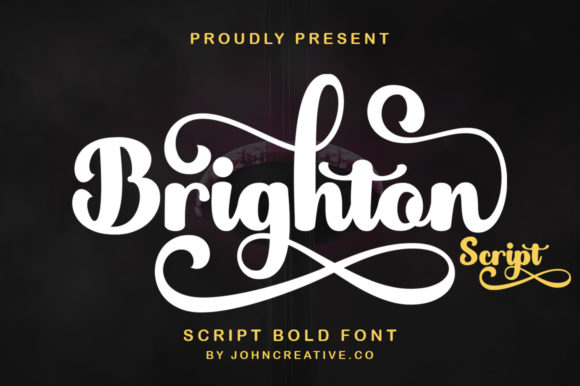
Brighton Script: More Than Just a Pretty Handwritten Font
In a digital world saturated with sterile sans serifs and predictable serifs, a touch of authenticity can be your brand’s most powerful asset. This is where a premium font like Brighton Script enters the conversation. It’s not merely a collection of letters; it’s a voice. This sophisticated handwritten typeface is designed to deliver messages with a blend of confidence, charm, and genuine character that feels both personal and polished.
At its core, Brighton Script is a modern script font that balances fluid, organic strokes with a deliberate structure. The letterforms exhibit a natural flow, with elegant swashes and subtle variations in weight that mimic the pressure and movement of a skilled hand. It avoids the overly casual or messy look of some handwritten fonts, instead opting for a refined, legible style. The overall appeal is one of approachable sophistication—think of a beautifully penned note from a friend who also happens to be a designer. This balance makes it an incredibly versatile creative font for a multitude of projects.
Where Brighton Script Truly Shines: Real-World Applications
The true test of any typeface is its performance in the wild. Brighton Script isn’t just for looking at; it’s for using. Its personality makes it exceptionally effective in specific contexts where connection and clarity are paramount.
Elevating Brand Identity and Marketing
For entrepreneurs and small business owners, a brand identity is a story. Brighton Script can serve as the narrator. In logo design, it can create an instant sense of craftsmanship and care, ideal for boutique shops, artisan food brands, wedding planners, or personal blogs. It humanizes a brand, making it feel more relatable. In marketing materials, from social media graphics to email headers, it draws the eye and conveys warmth, helping campaigns feel less like advertisements and more like conversations. When used for quotes, testimonials, or call-to-action phrases, it adds an emotional punch that standard fonts often lack.
Transforming Print and Editorial Design
In the realm of editorial design and packaging design, this handwritten font excels at creating visual hierarchy and focal points. Imagine it as the headline font for a lifestyle magazine’s feature story or the hero typeface on a gourmet coffee bag. It immediately sets a tone of quality and personality. For book covers, especially in genres like romance, memoir, or young adult fiction, it can suggest intimacy and storytelling. The font works beautifully on greeting cards, wedding invitations, and event stationery, where its charm is in full effect. Its strength lies in titles, headers, and short bursts of impactful text rather than lengthy body copy.
The Practical Guide to Using Brighton Script Effectively
Adopting a new display font like Brighton Script is an exciting step, but a strategic approach ensures it strengthens your work rather than complicates it. Here’s how to integrate it thoughtfully.
Evaluating Fit and Testing Pairings
First, assess your project’s needs. Does your brand or design call for a personal, artisanal, or elegant touch? If the answer is yes, Brighton Script is a strong candidate. Next, consider font pairing, a critical skill in modern typography. A script font rarely works alone for all text. The ideal partner is a clean, highly legible typeface that provides contrast. Pair Brighton Script with a simple sans serif font for a contemporary, balanced look. Alternatively, a classic serif font can create a more traditional, sophisticated pairing. Always test your pairings at different sizes to ensure the hierarchy is clear—the script for flair, the companion for readability.
Understanding Readability and Licensing
While Brighton Script is designed for clarity, its handwritten nature means it’s best suited for short text applications. Use it for headlines, logos, and subheadings, but opt for your chosen sans serif or serif font for body copy and paragraphs. This ensures your content is accessible to all readers. A significant practical advantage is that this font is PUA encoded. This means every glyph, swash, and stylistic alternate is easily accessible without needing advanced design software features, giving you full creative control. Before using it commercially, always verify the license terms to ensure it covers your intended use, whether for a client project, merchandise, or digital products.
Maximizing Impact with Included Styles
Don’t overlook the full toolkit. Many premium fonts like Brighton Script come with multiple stylistic sets or alternate characters. Experiment with these to customize the letterforms for your specific design. Maybe a different swash on the capital ‘B’ better suits your logo, or a simpler lowercase ‘g’ improves readability in a particular context. Reviewing these options allows you to tailor the font, making your work unique. This level of detail is what separates generic design from truly crafted design assets that contribute to a cohesive and professional brand identity.
In the end, choosing a typeface is about communication. Brighton Script offers a powerful way to communicate authenticity, creativity, and confidence. It’s a tool that, when used with intention, can significantly enhance audience engagement and make your message not just seen, but felt. Whether you’re designing a brand from scratch, crafting a new product label, or creating compelling content, this script font provides a reliable and elegant solution for adding that essential human touch.